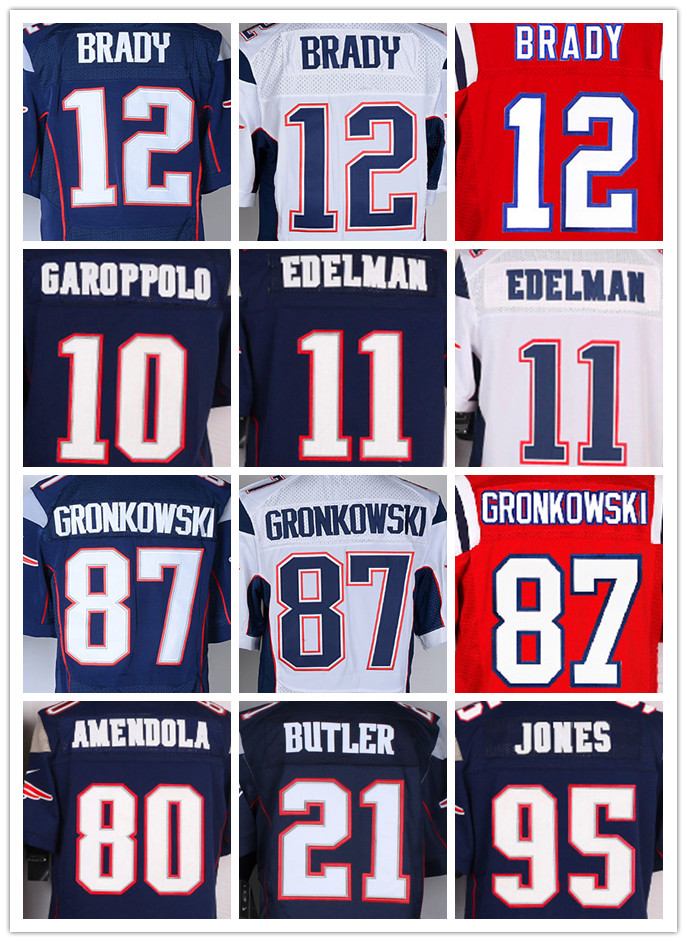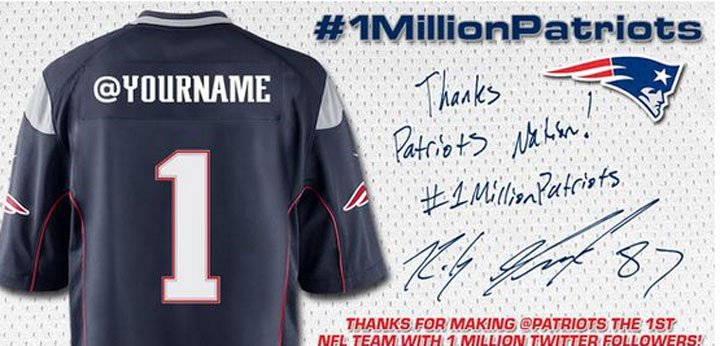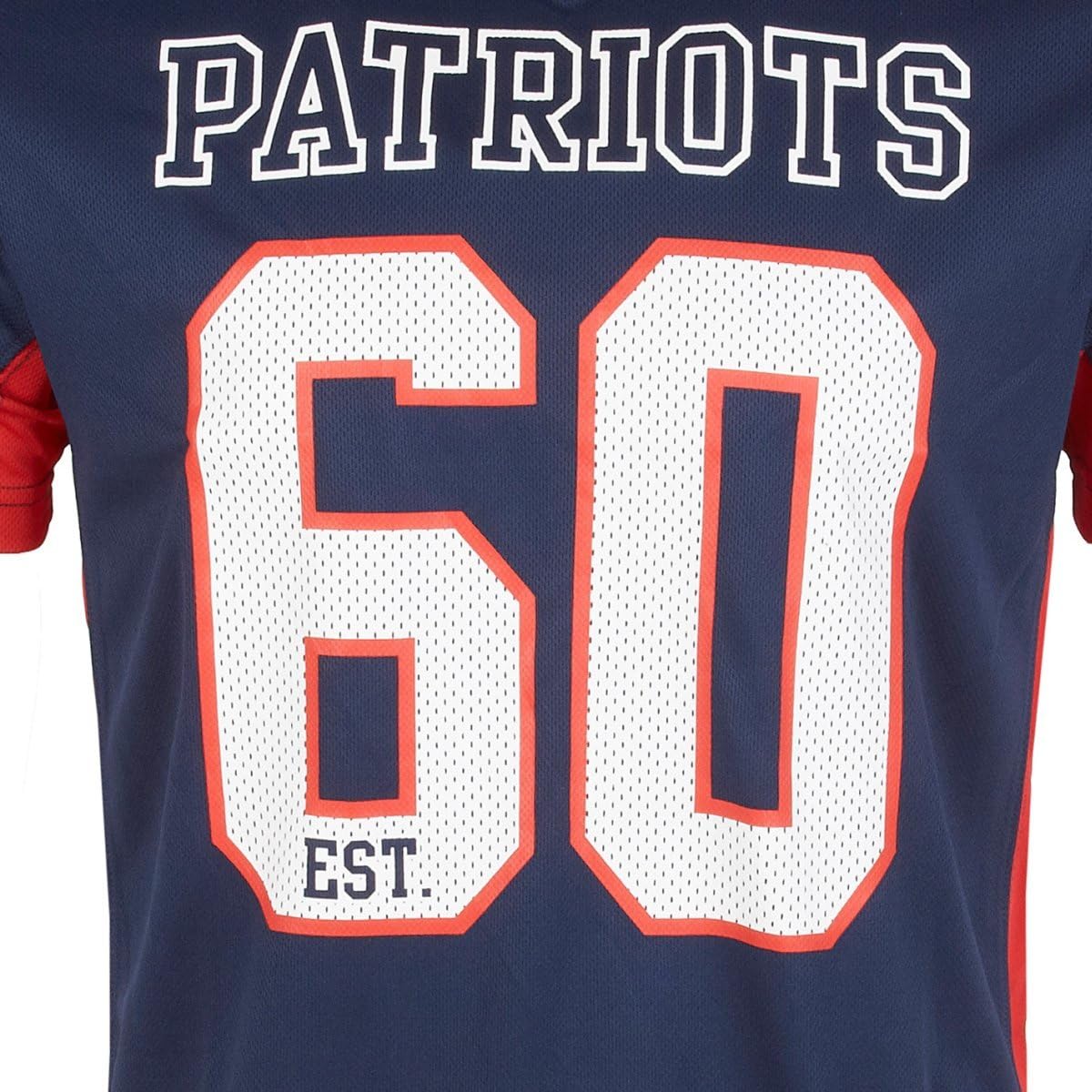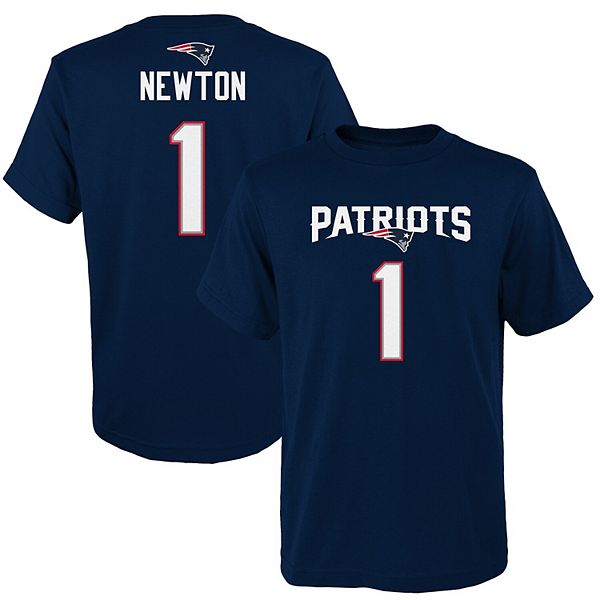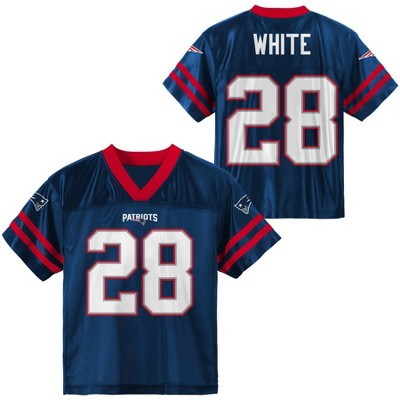
Patriots Jersey Number Font
Patriots jersey number font. The upper and lower case s and s are different the lower case one being more traditional for this style of font. This font has been downloaded 40000 times. The greatest improvement is in the teams jersey numbers. Generate a jersey for your youth league or mimic a professional nfl jersey all for free.
Legend m54 by mohammed rahman. Sep 16 2018 download the free font replicating the new england patriots logo and many more at the original famous fonts. The patriots are leaving in the past their large somewhat gaudy number font introduced in 2000 which became a staple of new englands. The left and right curly brackets hold alternate glyphs for numbers 2 and 5.